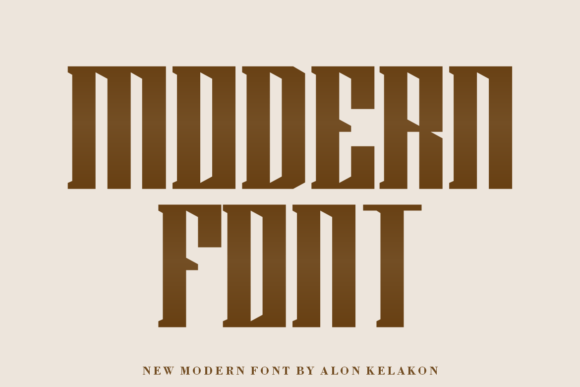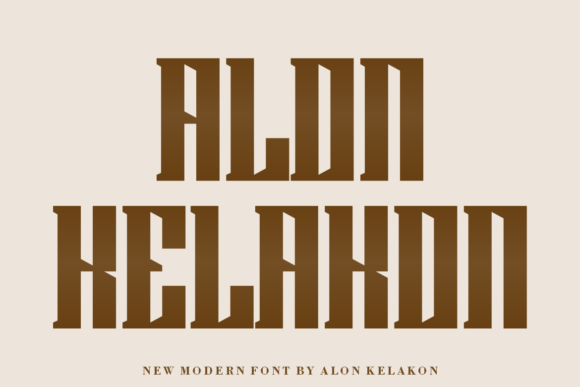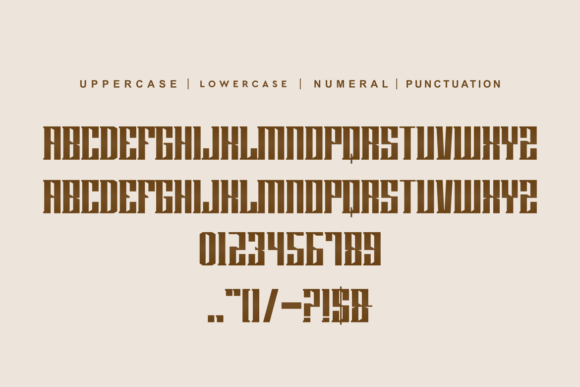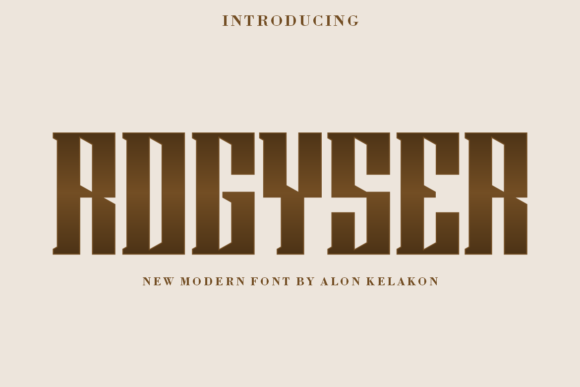
Introduction to Rogyser Font
Rogyser is a unique and solemn serif font ready to use for your design like labeling, clothing, movie scenes, poster, movie title, gigs, album covers, logos, and much more.
Key Features of Rogyser Font
Why Choose Rogyser Font?